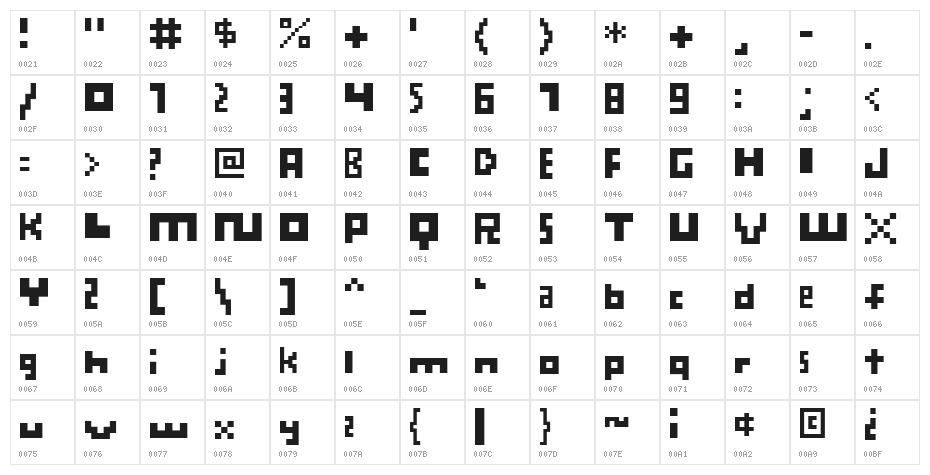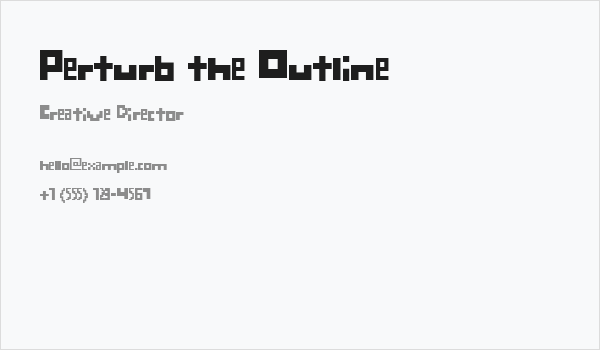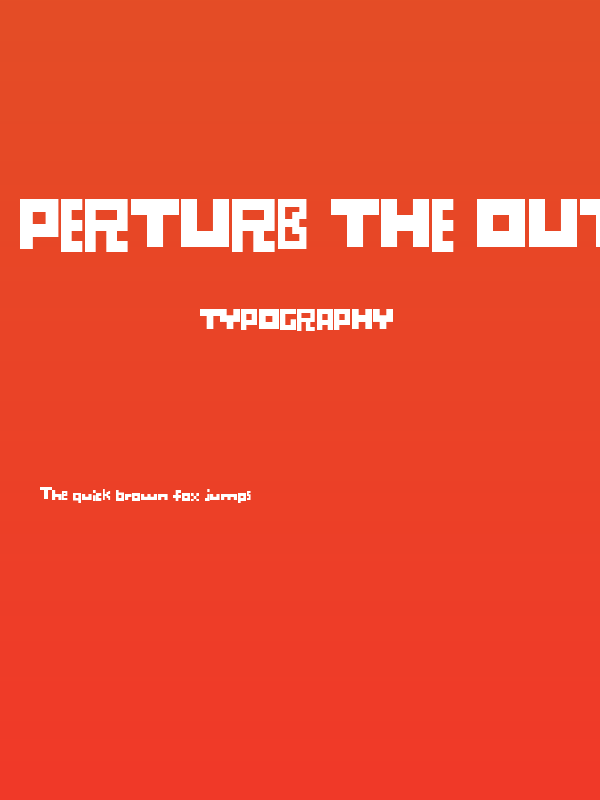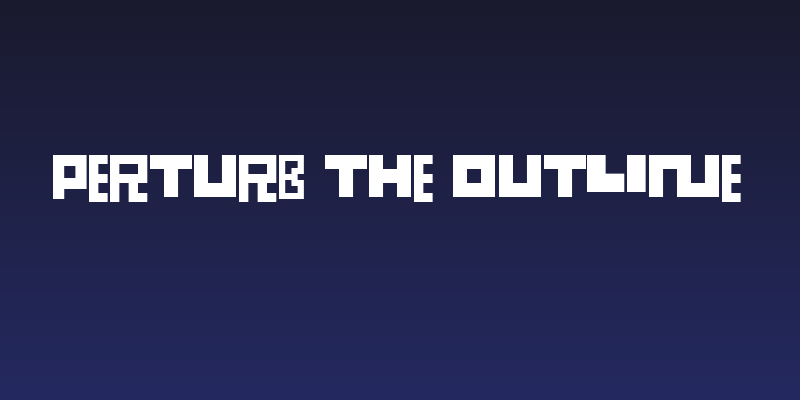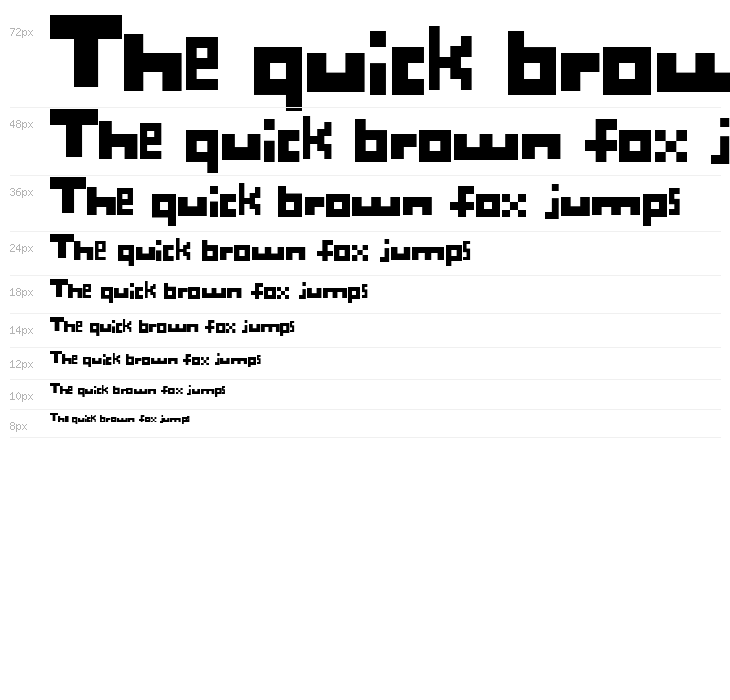
Perturb the Outline Font
Perturb the Outline Description
This font features a bold, blocky design with a pixelated aesthetic reminiscent of early digital displays or retro video games. Each character is constructed with sharp, angular edges and a consistent thickness throughout, giving it a uniform and cohesive appearance. The uppercase and lowercase letters maintain a similar style, with slight variations in height and width to differentiate them. Numbers and special characters follow the same geometric pattern, ensuring a seamless integration across all glyphs. The font's distinct style makes it highly recognizable and suitable for projects that require a strong visual impact.
| Overall Style | Retro, Digital |
| Proposed Projects | Ideal for video game graphics, retro-themed posters, digital art projects, and any design requiring a nostalgic or tech-inspired look. |